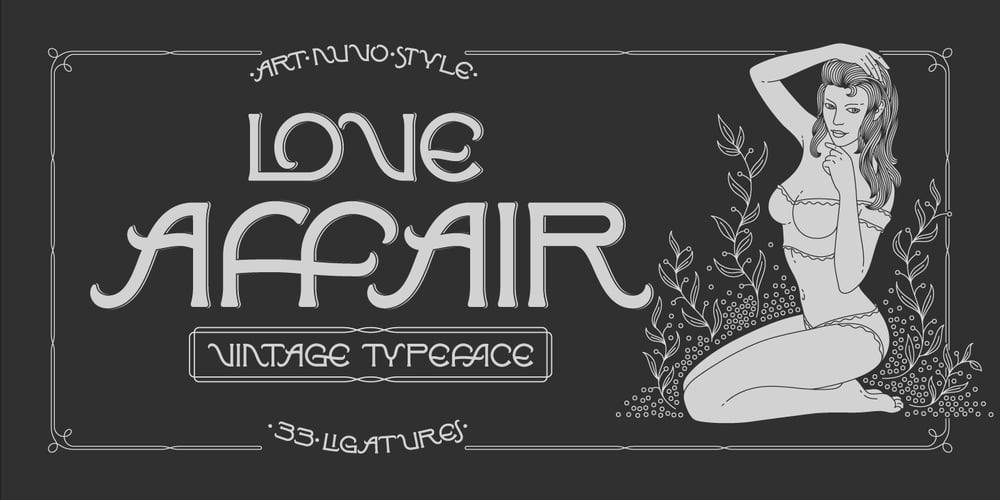
Love Affair Font Family was designed by Gleb Guralnyk and published by Gleb Guralnyk. Love Affair contains 1 styles and family package options. Love Affair is an art nouveau vintage style font. It’s an old-school typeface, perfect for creating some classic lettering compositions. Love Affair includes lots of ligatures to create more organic text shape.